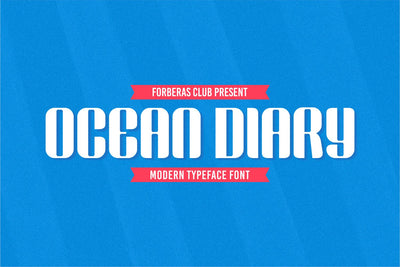
Ocean Diary
Introducing Ocean Diary Font by Forberas Club
Ocean Diary is a Modern Handwritten Font. Ocean Diary is perfect for book cover, product packaging, branding project, megazine, social media, wedding, or just used to express words above the background.This font includes TTF and OTF, This font also multilingual support.